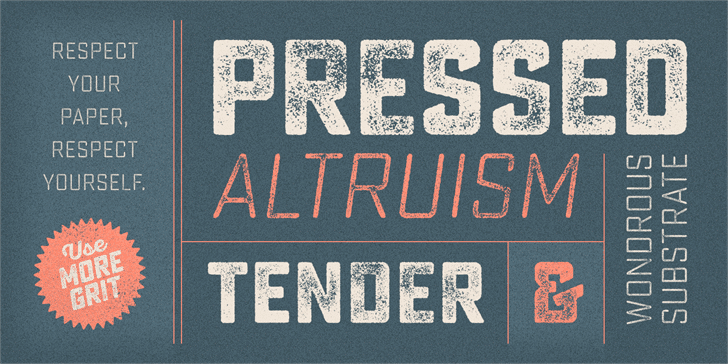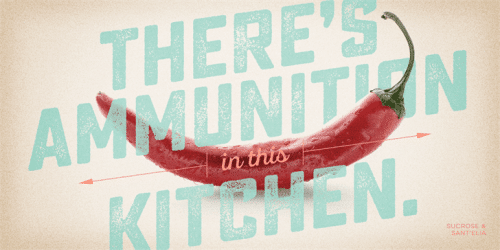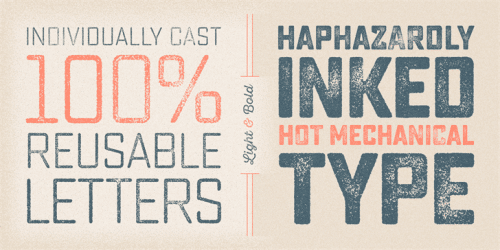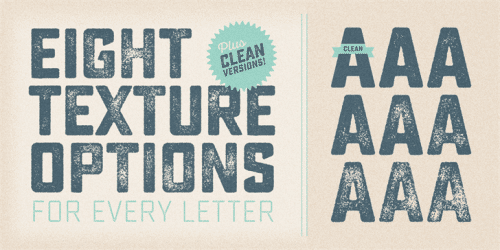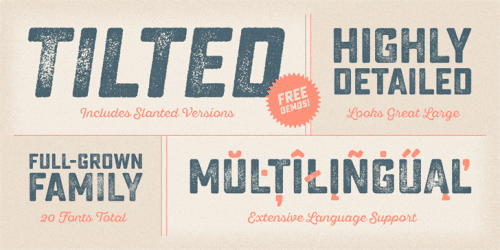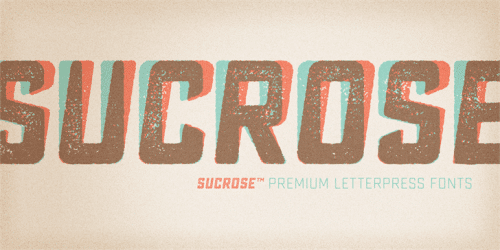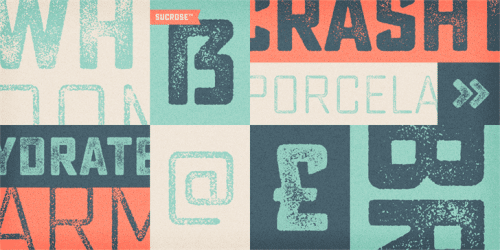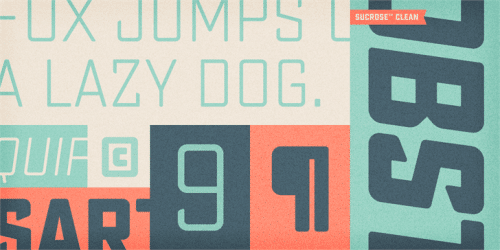
Sucrose Bold Two Font
Sucrose Bold Two font
Sucrose from Yellow Design Studio is a premium high-resolution letterpress family with rectangular letterforms and authentic, hand-crafted texture. It features 8 distress levels for all letters (4 for other characters) that can be mixed to create realistic, custom typesettings. The 20-font family includes light and bold weights plus clean and slanted versions.